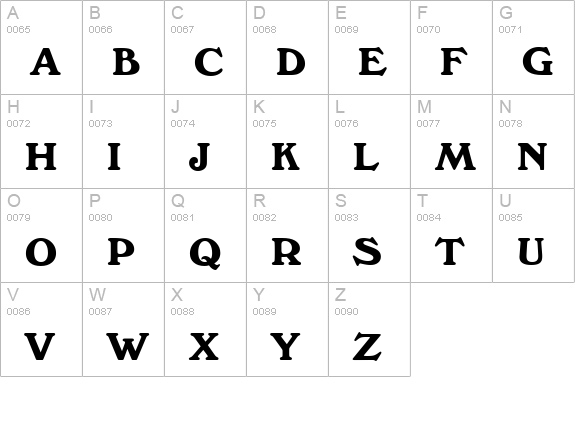
Whitehall-Bold is a strong, high-contrast variant in the Whitehall typeface family \xE2\x80\x94 well suited to headlines, attention-grabbing titles, and strong calls-to-action.
Whitehall-Bold is a modern and elegant font that exudes sophistication and style. Its bold and distinct lettering makes it perfect for creating eye-catching designs and projects. Whether you're designing a logo, poster, or website, Whitehall-Bold is sure to make a statement. The best part? Whitehall-Bold is available to download for free at FontsMarket.com. This means you can add this stunning font to your collection without any cost. Don't miss out on the opportunity to enhance your designs with the timeless appeal of Whitehall-Bold. Download it now and elevate your creative projects to the next level.